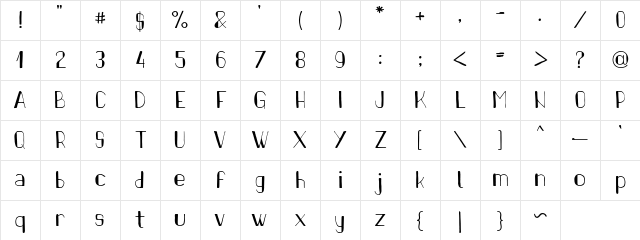
Pinon Regular Free Font
Pinon Regular
Foundry: Quzma Supply Co.
Designer: Quzma Supply Co.
Design Context for Pinon
Pinon is a composed and adaptable typeface that performs quietly and consistently across a wide range of design contexts.